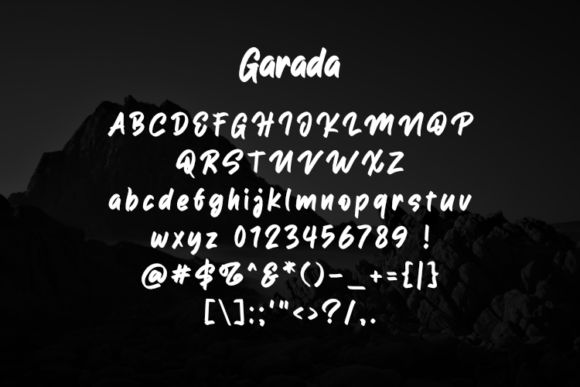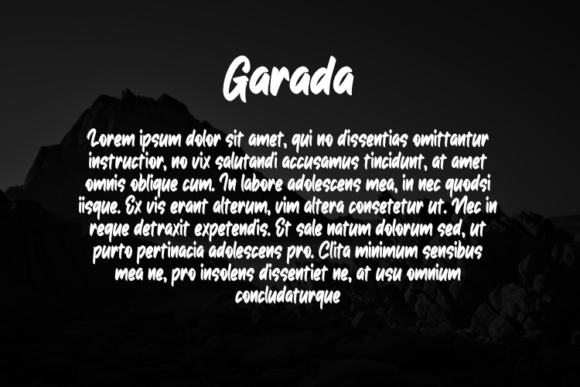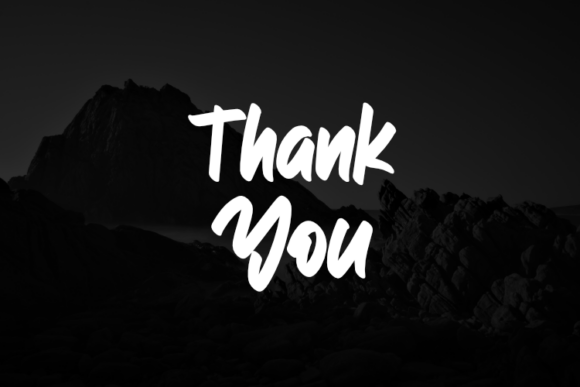
Discover the Unique Elegance of Garada Font: A Game-Changer for Fashion Forward Designs
In the world of design, fonts play a crucial role in bringing a creative vision to life. For fashion designers, crafters, and artists, finding the perfect typeface can be a daunting task. However, with the introduction of Garada Font, the search is over. This versatile font is specifically tailored for fashion-forward clothing designs, cutting-edge t-shirts, and a wide range of products, making it an effortless solution for designers and crafters alike.
Aesthetic Appeal and Distinctiveness
Garada Font boasts a unique elegance that sets it apart from other typefaces. Its distinctiveness is not just about aesthetics; it’s about creating a statement. With Garada, designers can add a touch of sophistication and style to their designs, making it perfect for fashion-forward clothing designs, luxury brands, and high-end products.
Designed to Excite and Inspire
Garada Font is not just a typeface; it’s a design experience. Created to excite and inspire, this font is perfect for designers and crafters who want to push the boundaries of their creativity. Whether you’re working on a new fashion collection, a branding project, or a personal craft, Garada Font is designed to help you bring your vision to life.
So, what makes Garada Font a game-changer for designers and crafters? Here are just a few benefits:
- Unique aesthetic appeal: Garada Font offers a distinct elegance that sets it apart from other typefaces.
- Versatility: Suitable for a wide range of applications, from fashion designs to digital media.
In conclusion, Garada Font is a game-changer for designers and crafters looking to elevate their typography and bring their creative vision to life. With its unique elegance, seamless compatibility, and versatility, this font is perfect for fashion-forward clothing designs, cutting-edge t-shirts, and a wide range of products. Experience the distinctiveness of Garada Font and discover a new world of creative possibilities.
So, why settle for ordinary typography when you can have a font that excites and inspires? Immerse yourself in the unique elegance of Garada Font and take your designs to the next level.